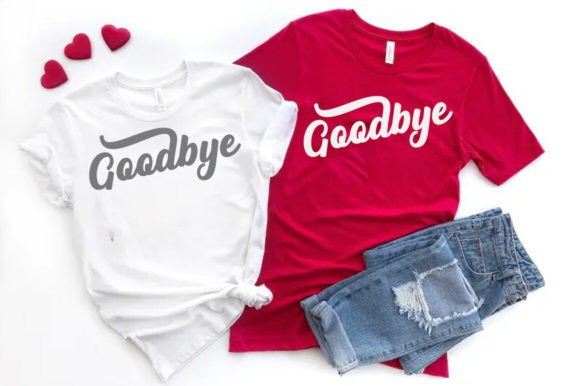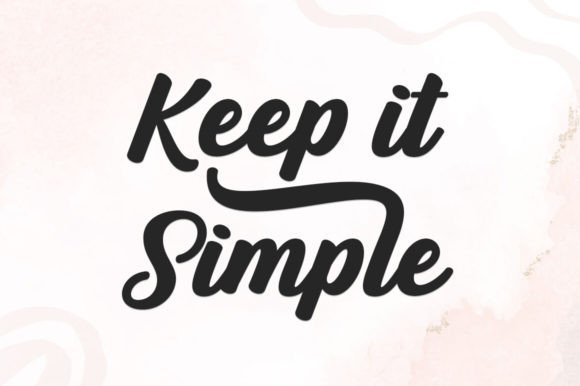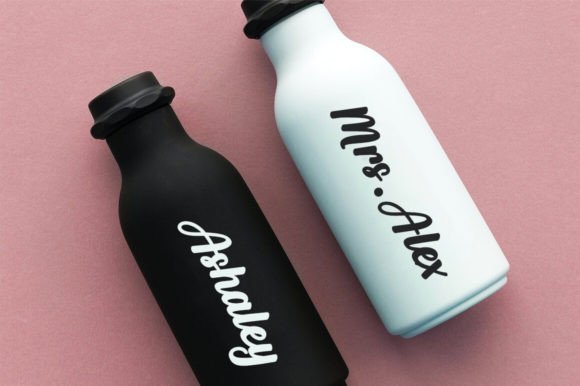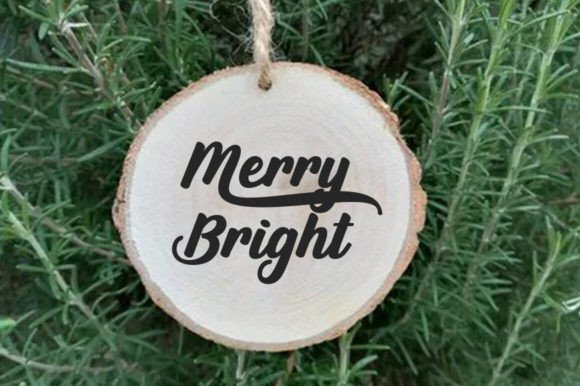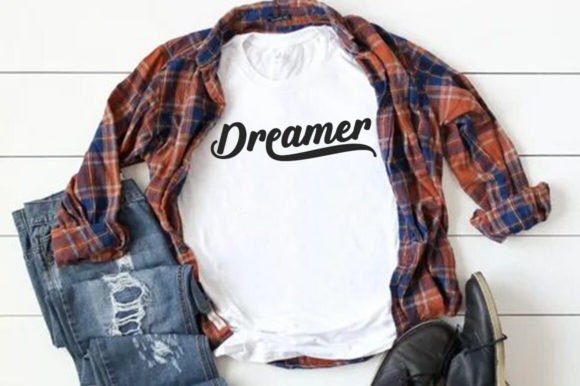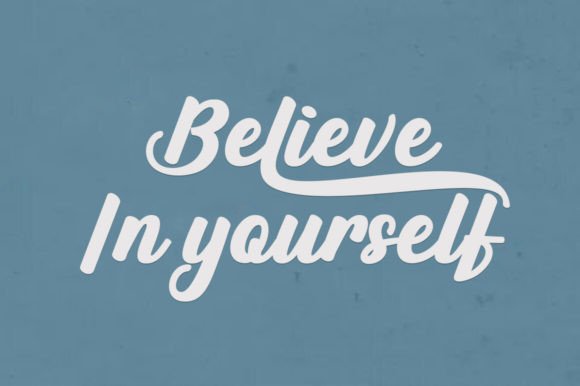
The Hunt for the Perfect Font: Discovering Anthom
I still remember the frustration of scrolling through font after font, searching for the perfect one to bring my design to life. It was for a client’s farmhouse sign project, and I needed something that screamed rustic charm and modern elegance. That’s when I stumbled upon Anthom, a modern handwritten script font that has since become a staple in my design toolkit.
What is Anthom?
Anthom is a beautiful, modern handwritten script font perfect for a wide range of creative projects, from SVG designs, farmhouse signs, shirts, and branding to ornaments, headings, blogs, logos, invitations, and more! Its versatility and unique character make it an excellent choice for designers, crafters, and creative hobbyists.
An Honest Review of Anthom
The Good: What I Love About Anthom ✨
- 💫 Unique and modern handwritten script style
- 🌈 Extensive range of OpenType features, glyphs, and stylistic alternates
- 👍 Perfect for both digital and print projects
The Not-So-Good: Small Quirks and Limitations ⚠️
- ⚠️ Limited availability of condensed or italic variations
The Designer Inspiration Behind Anthom
Anthom was created with the intention of bringing a touch of modern elegance to handwritten script fonts. Its designer aimed to craft a font that would be both versatile and unique, suitable for a wide range of creative projects. While the designer’s story might be fictional, the inspiration behind Anthom is undoubtedly rooted in a passion for beautiful typography.
| What type of projects is Anthom best suited for? | Anthom is perfect for a wide range of projects, including SVG designs, farmhouse signs, shirts, branding, ornaments, headings, blogs, logos, invitations, and more! |
| Is Anthom suitable for both digital and print projects? | Yes, Anthom is highly legible and versatile, making it suitable for both digital and print projects. |